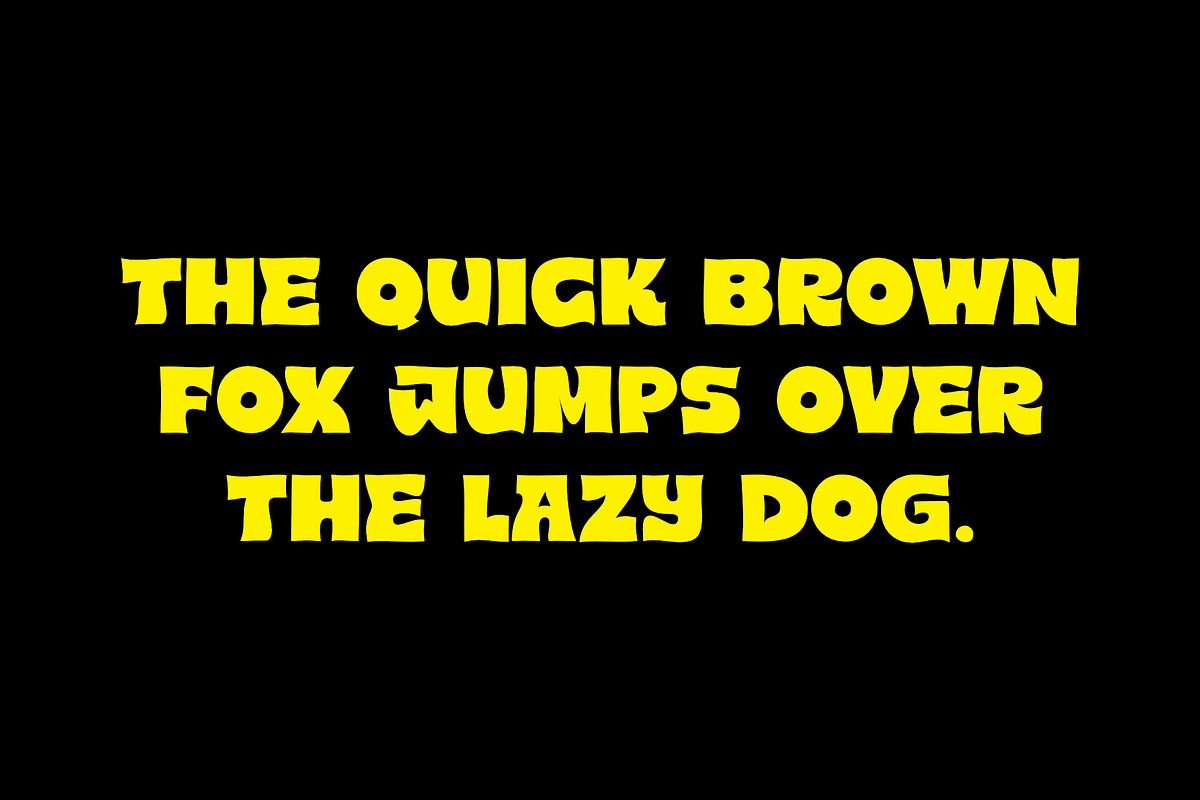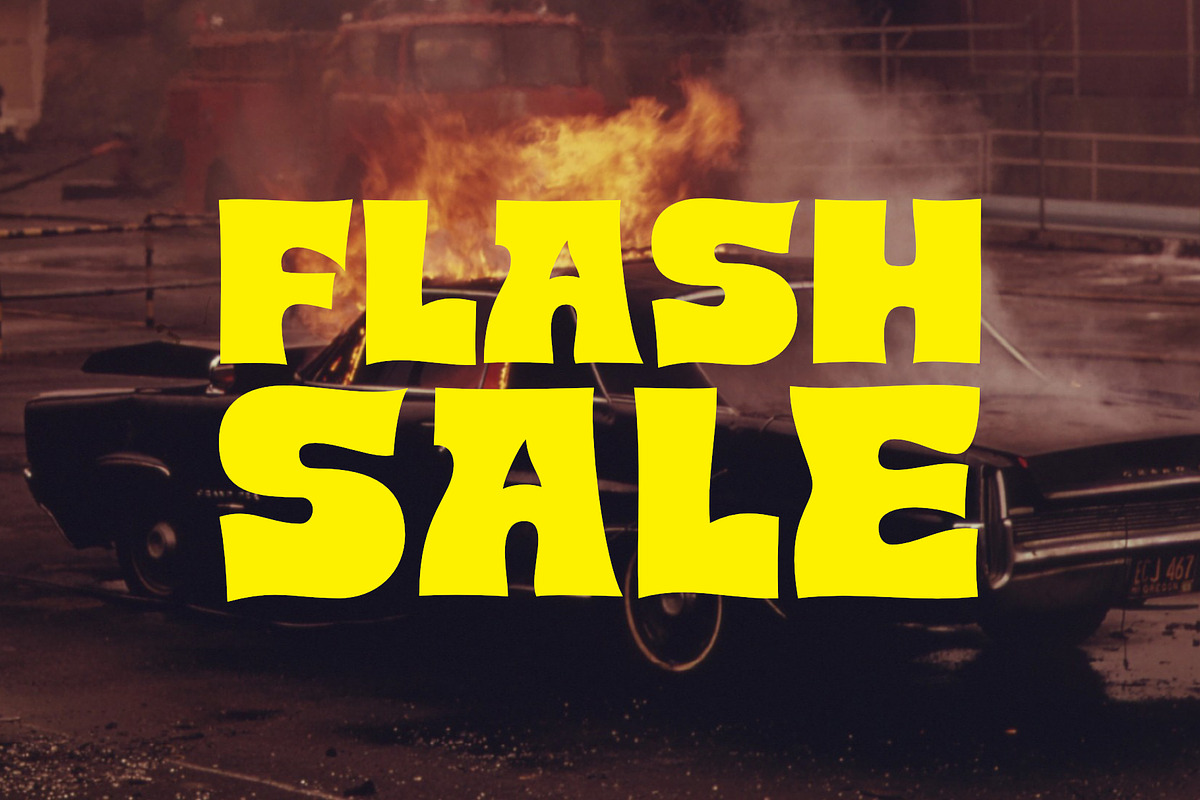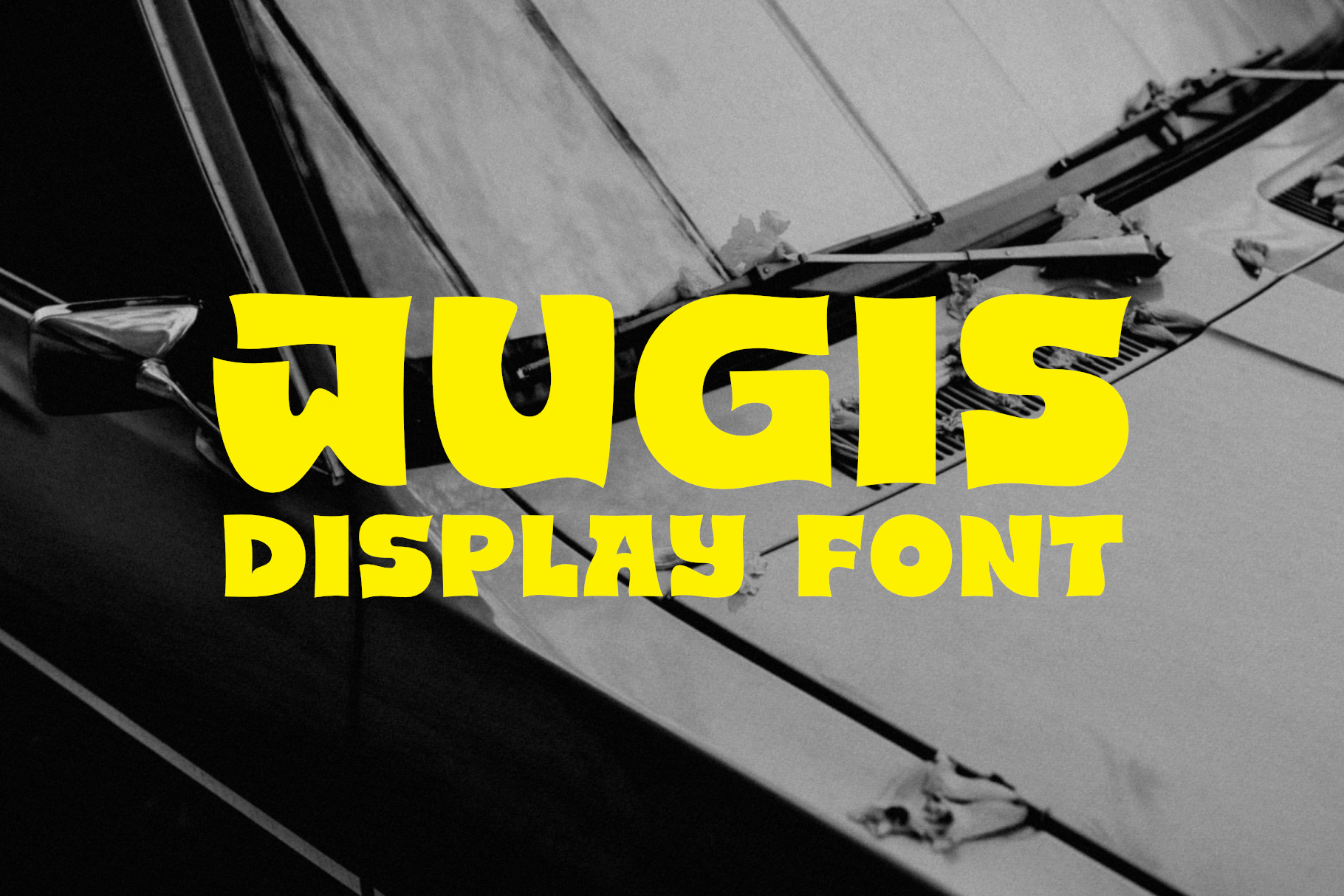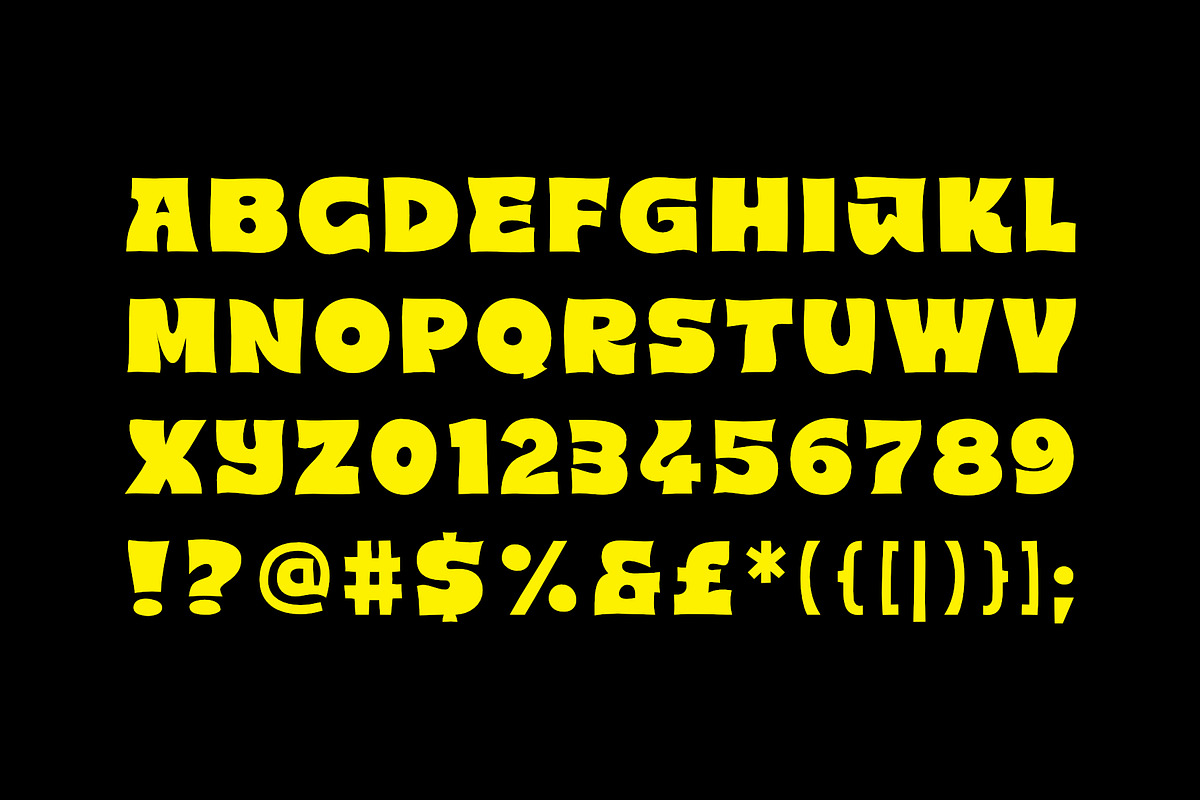
Jugis | Display Font
Jugis Display is a font with characteristic shapes, perfect for graphic designs with an intriguing style. The font will work well in poster design, branding, logo design and clothing branding.